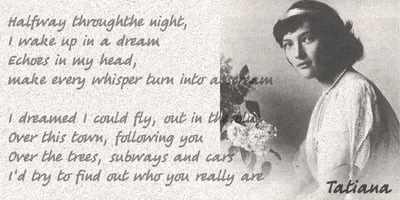
Tatiana Font
Tatiana Font is gracefully designed for Russian ballet company branding, Slavic cultural events, romantic novel covers, elegant wedding invitations, classical music publications, Eastern European heritage materials, sophisticated feminine branding, and artistic performance communications. This enchanting typeface excels in environments requiring Slavic elegance and feminine sophistication, making it perfect for cultural institutions, performing arts organizations, luxury brands, and any business needing to communicate Russian cultural heritage and romantic elegance through distinctive typography.
What makes Tatiana Font so exciting is its exquisite capture of Russian cultural refinement and feminine grace that instantly evokes the elegance of Russian classical arts and the romantic sophistication of Slavic literary traditions. The font features beautifully crafted letterforms with flowing curves and graceful proportions that reflect the artistic beauty of Russian ballet and the poetic elegance of Russian literature. Its cultural construction and feminine character make it incredibly effective for brands wanting to communicate sophistication, romance, and Slavic heritage while appealing to audiences who appreciate classical arts and Eastern European cultural sophistication.
Tatiana Font typically includes multiple weights and styles such as Light, Regular, Medium, and Bold, often accompanied by flowing script variations that enhance its romantic appeal. The font family frequently features additional character sets including Cyrillic support, cultural ornaments, and elegant glyphs that enhance its Slavic sophistication. Each weight maintains the font's distinctive graceful character while offering different levels of romantic emphasis, providing designers with comprehensive tools for creating elegant brand identities and culturally rich communication materials.
Cultural arts professionals will discover that Tatiana Font delivers outstanding performance in both traditional cultural applications and contemporary luxury branding materials requiring Slavic authenticity. The font's carefully crafted character set includes culturally appropriate letterforms, Russian symbols, and elegant elements essential for performing arts branding, cultural materials, and luxury communications. Its romantic design makes it particularly effective for ballet companies, classical music venues, luxury fashion brands, and culture-oriented marketing campaigns requiring authentic Russian presence.
The thoughtful attention to Slavic proportions and graceful spacing ensures that Tatiana Font maintains excellent readability while delivering maximum cultural impact. Its elegance-inspired design language makes it particularly effective for performing arts, luxury branding, romantic communications, and cultural heritage applications. The font's sophisticated appearance creates strong cultural connections while remaining highly functional for projects requiring clear communication to arts enthusiasts and culturally sophisticated audiences.
For designers seeking a typeface that embodies Russian elegance with feminine sophistication, Tatiana Font represents an exceptional choice that will grace any project with its distinctive charm and Slavic character.